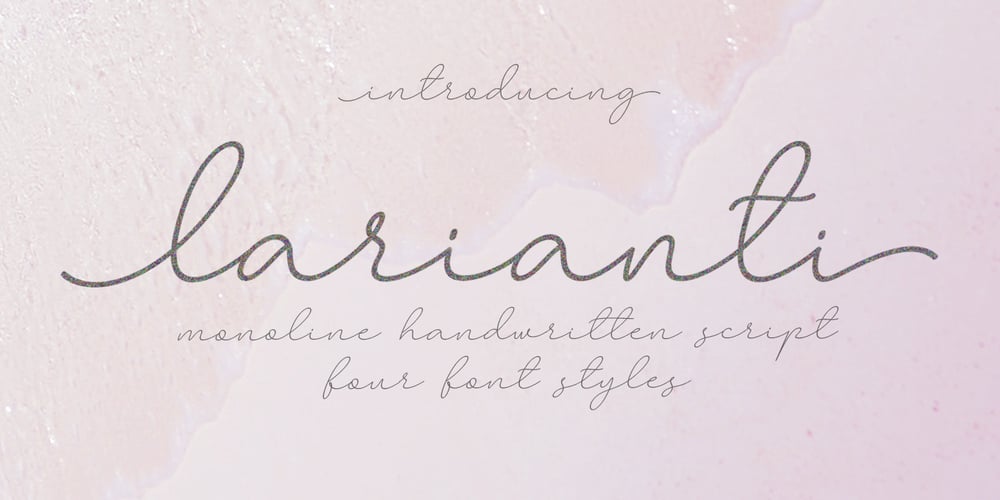
Larianti
Larianti font
Larianti Font Family was designed by Rangga Subekti and published by Subectype. Larianti contains 4 styles and family package options. Larianti Monoline Handwritten Font – a new modern & fresh script with a handwritten and script style making this font looks elegant, natural, and stylish. Larianti is perfect for photography, watermark, social media posts, advertisements, logos & branding, invitation, product designs, label, stationery, wedding designs, product packaging, special events or anything that need handwriting taste. What’s Included : Larianti 4 Font Styles Multilingual Support Opentype Features I hope you enjoy this font. If you have any questions please don’t hesitate to drop me a message. Thank You, Subectype